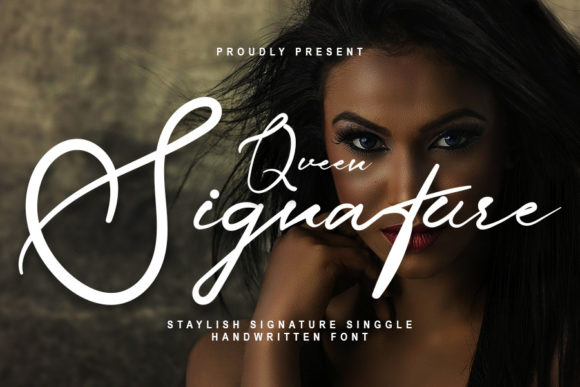
Journey into the realm of elegance and sophistication with Queen Signature Font, a script font family that will transform your creative visions into captivating masterpieces. Designed by FreshTypeINK, Queen Signature Font exudes a charm that is both captivating and timeless. Its meticulously crafted curves and swirls dance across the page with a grace that will leave you spellbound.
Unleash your creativity and let Queen Signature Font guide you through a world of possibilities. Whether you're crafting wedding invitations that radiate romance, thank you cards that express your heartfelt gratitude, or business cards that leave a lasting impression, Queen Signature Font is your perfect companion. Its versatility knows no bounds, lending its charm to logos, greeting cards, quotes, and any design that yearns for a touch of handwritten elegance.
Indulge in the beauty of Queen Signature Font and watch as your designs blossom into works of art. Let its intricate details captivate your audience, leaving them in awe of your creative genius. Join the ranks of discerning designers who have discovered the magic of Queen Signature Font and elevate your designs to new heights of excellence.
Embrace the allure of Queen Signature Font and embark on a creative journey like no other. From the delicate strokes of a love letter to the bold statements of a business proposal, Queen Signature Font will add a touch of sophistication and refinement to all your endeavors. Seize this opportunity to transform your designs into timeless treasures that will be cherished for years to come.